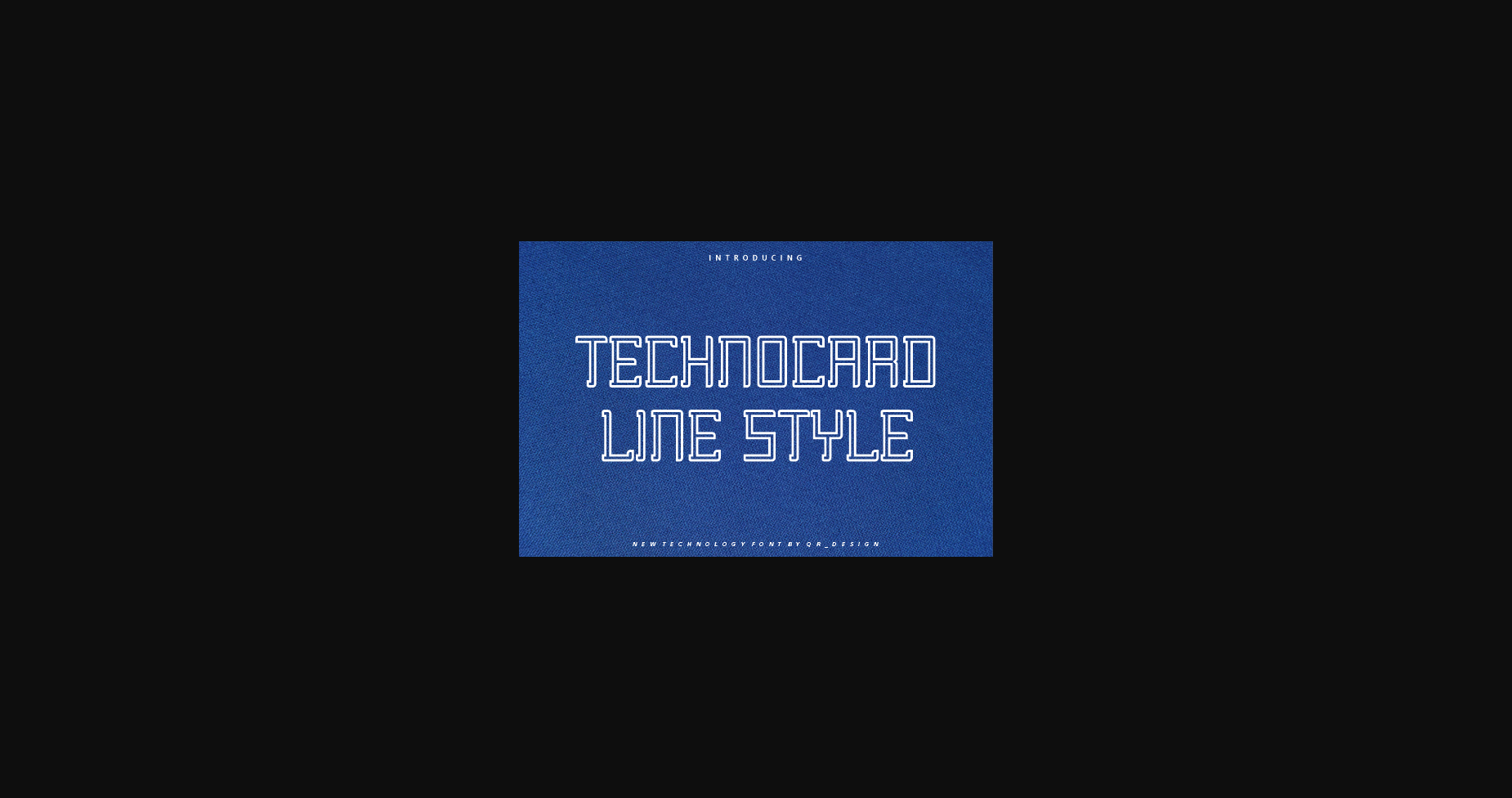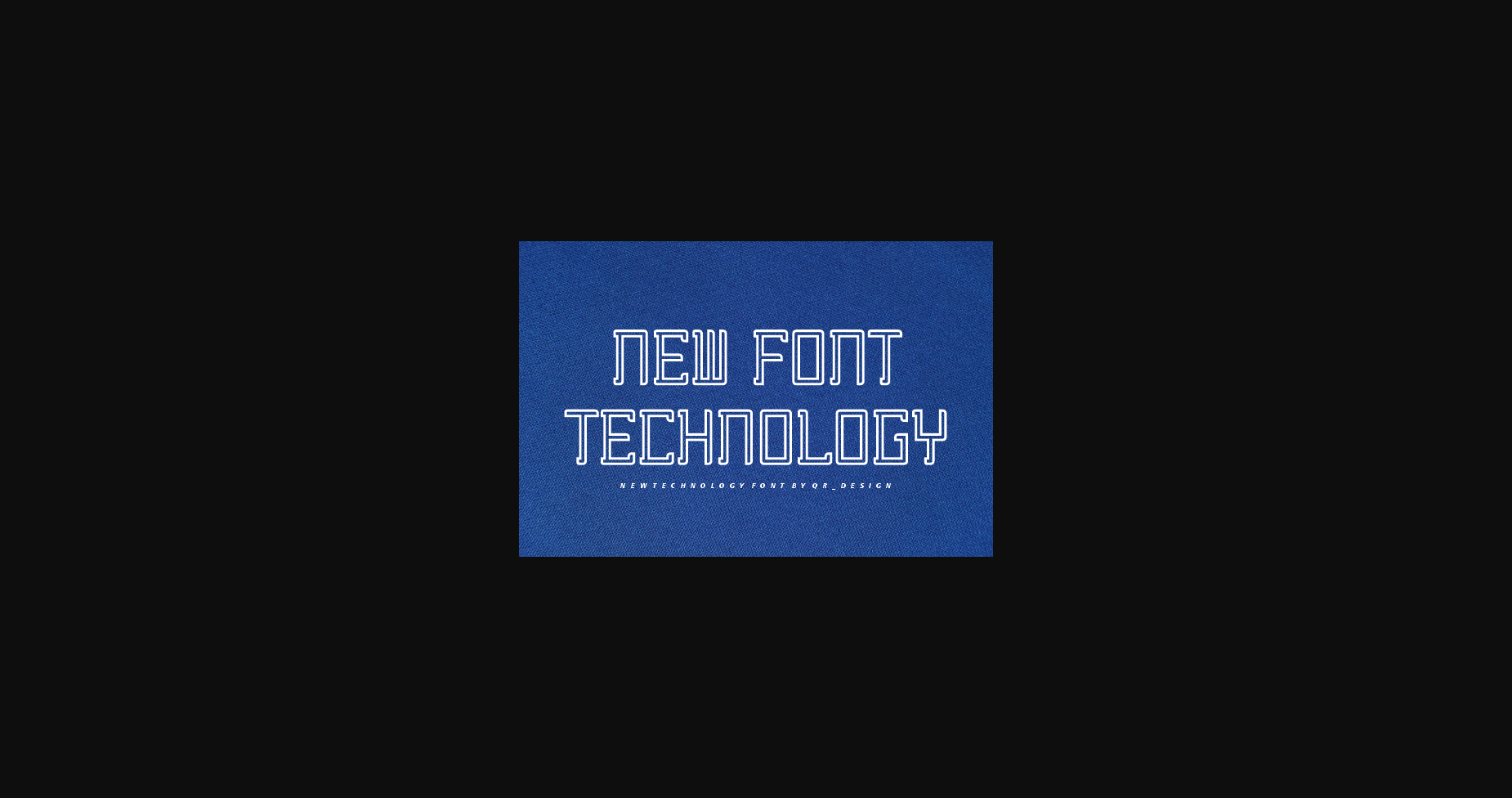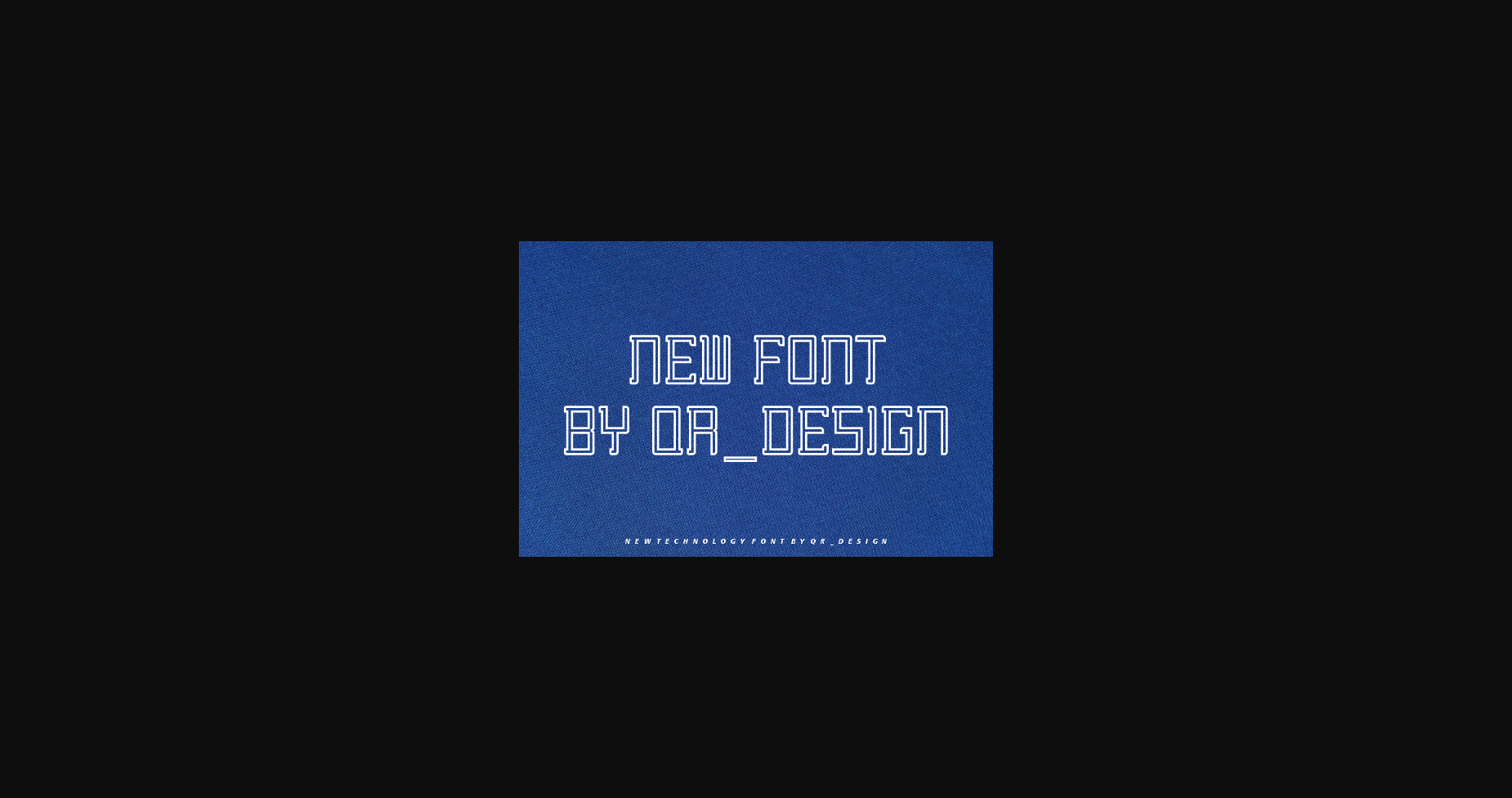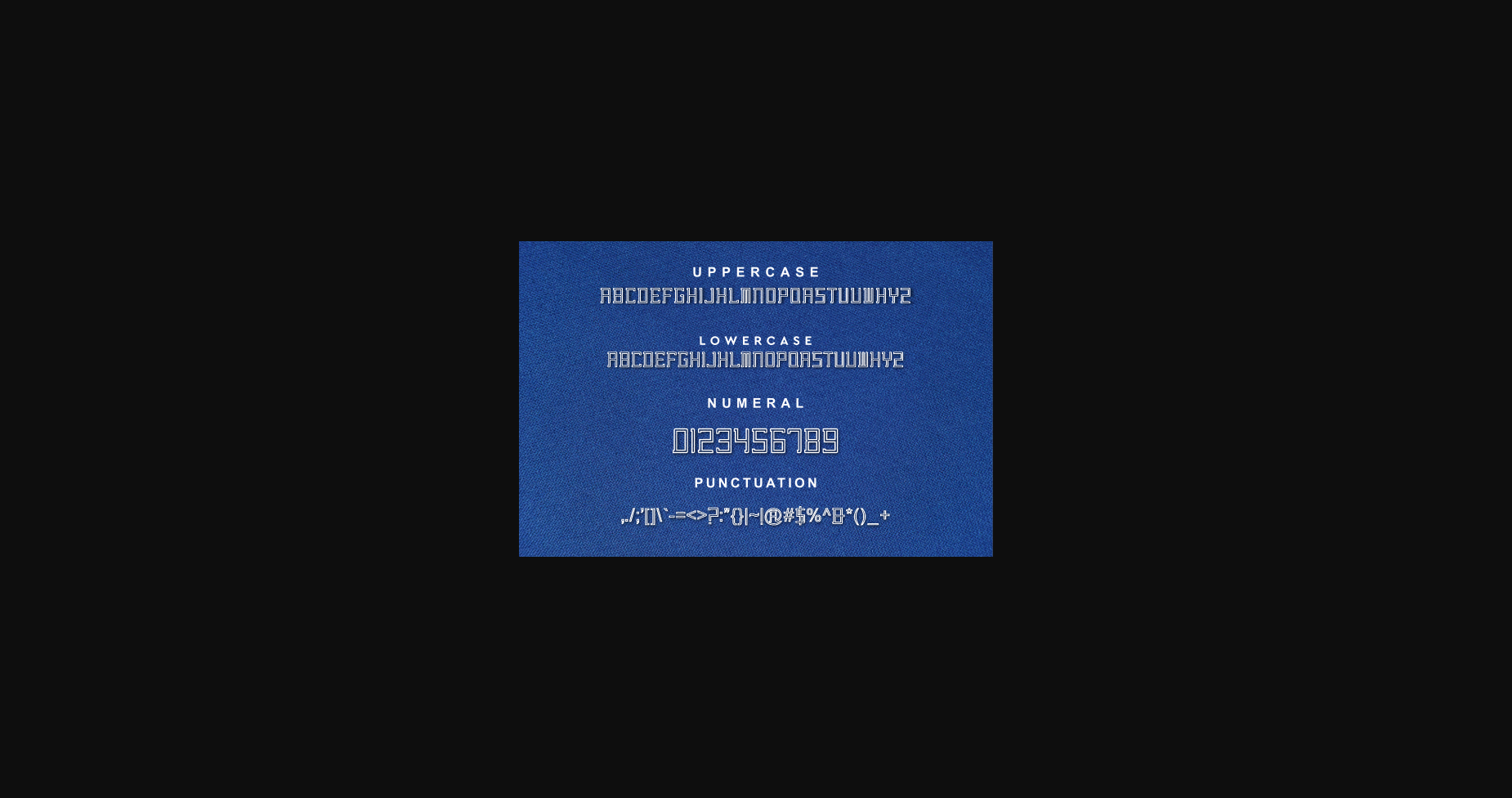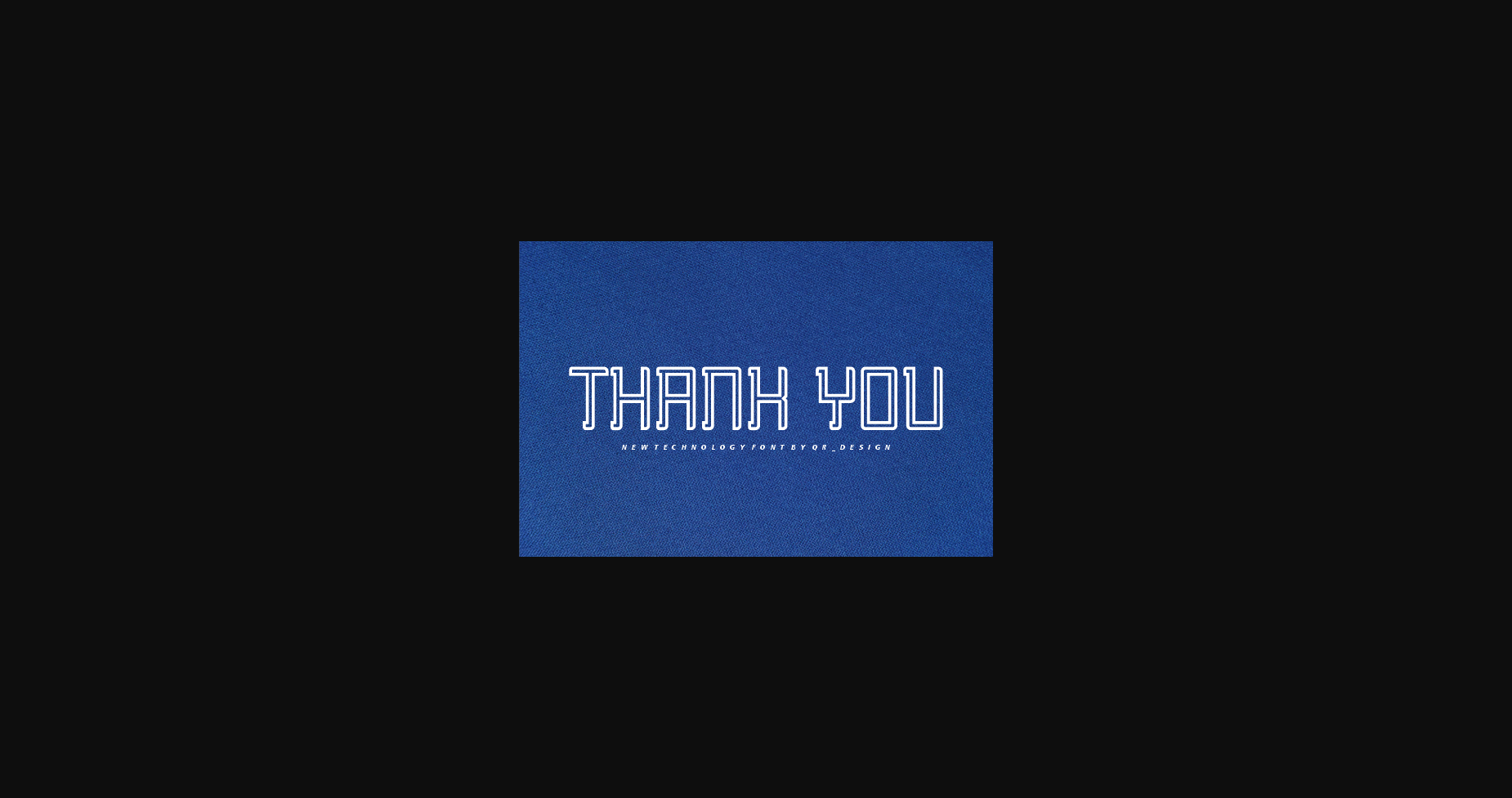
Technocard Line – Modern Font is a bold and authentic display font. The font is suitable for any branding project like logo, t-shirt printing, Game, sport, and many more. outstanding in a wide range of contexts.